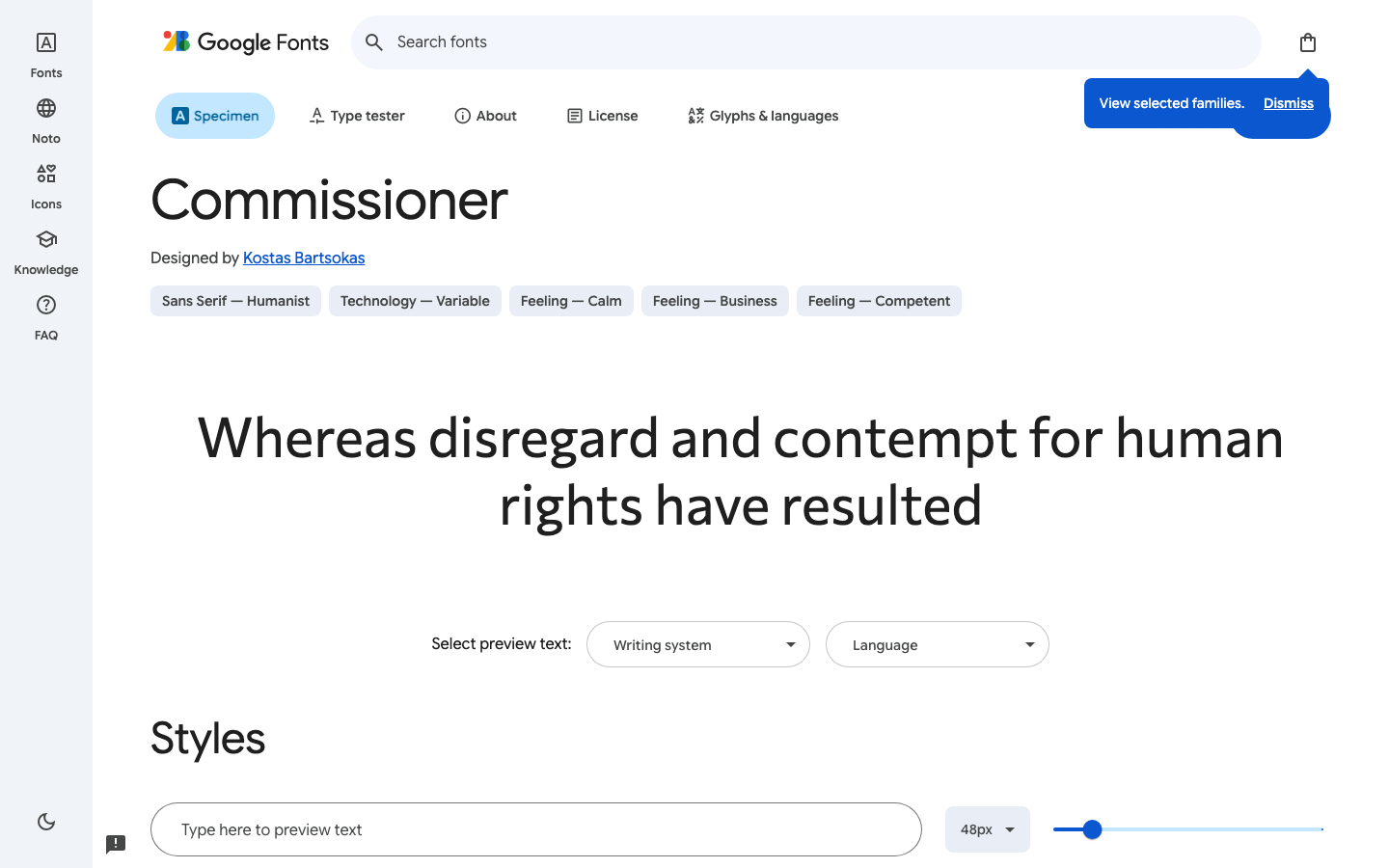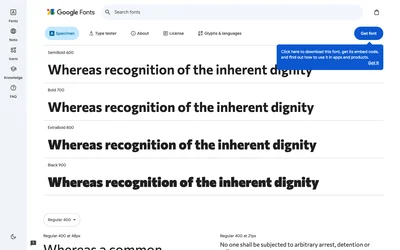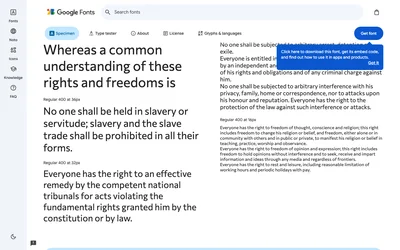
Acumin vs Commissioner
Acumin and Commissioner are both sans-serif typefaces sharing a modern foundation. Compare which suits your Ui project.
Design overlap:50%
Acumin
Neo-Grotesque
Modern
Commissioner
Modern
Acumin
Commissioner
| Feature | Acumin | Commissioner |
| Variable Font | No | Yes |
| Weights | Multiple | Variable |
| Language Support | latin, latin-extended | latin, latin-extended, cyrillic, greek |
| Source | Adobe | Kostas Bartsokas |
UI Design
Acumin Commissioner
Corporate
Acumin Commissioner
Multilingual
Acumin Commissioner
Recommended: Acumin
- neo-grotesque design character
- Suited for Corporate
- From adobe
Consider: Commissioner
- Suited for Multilingual
- From kostas-bartsokas
- Available as a variable font